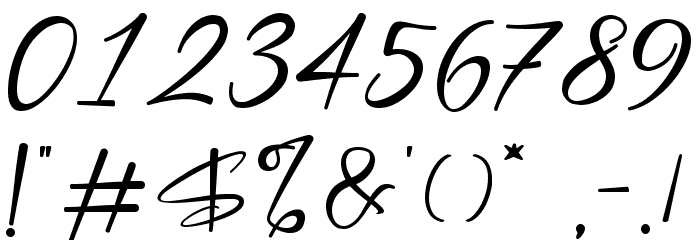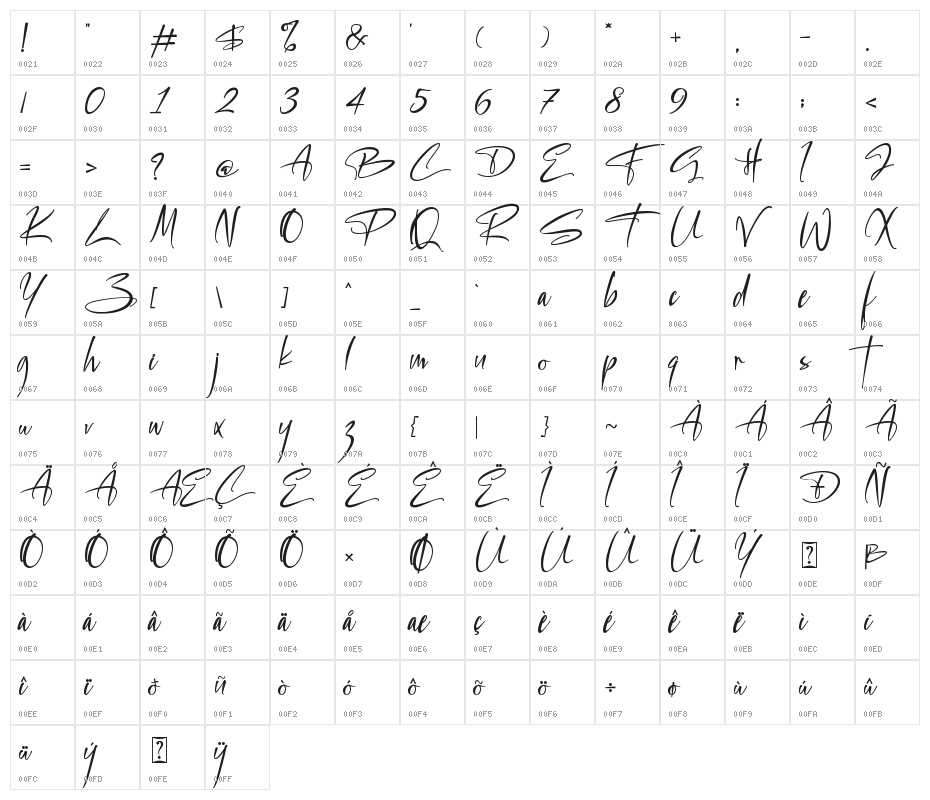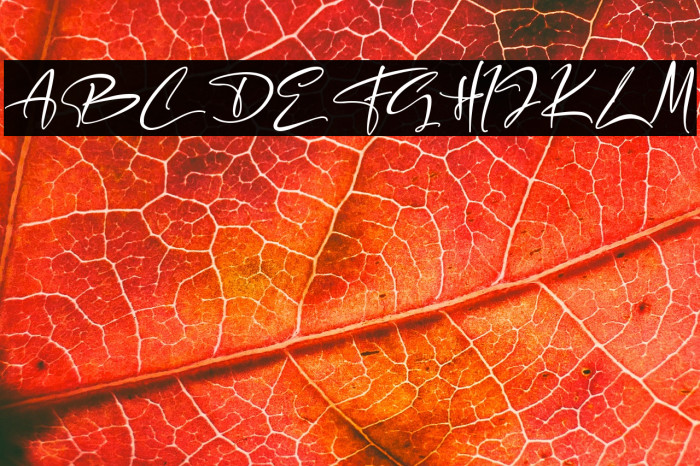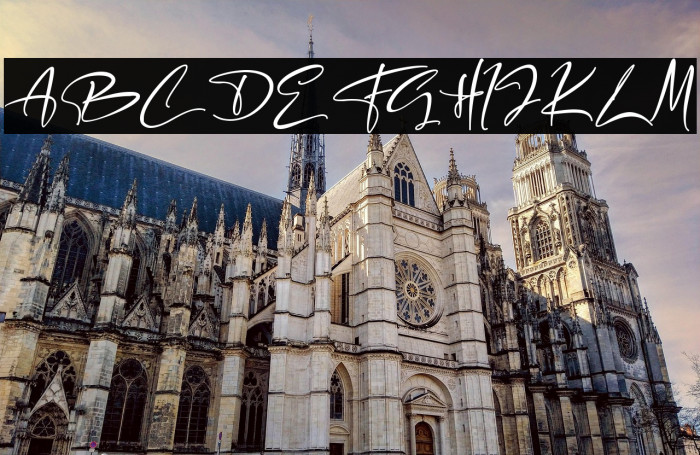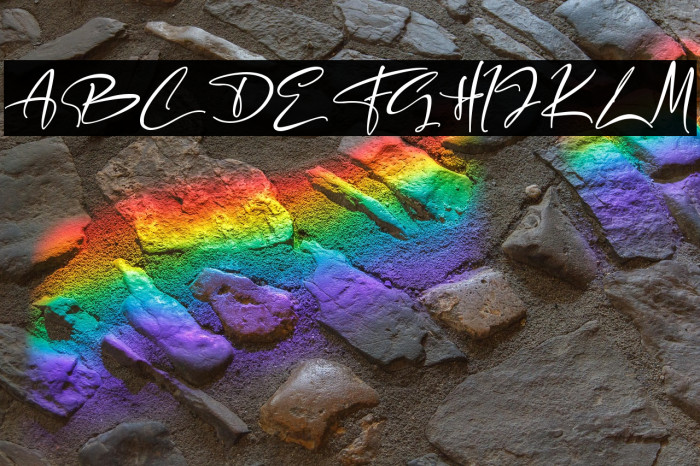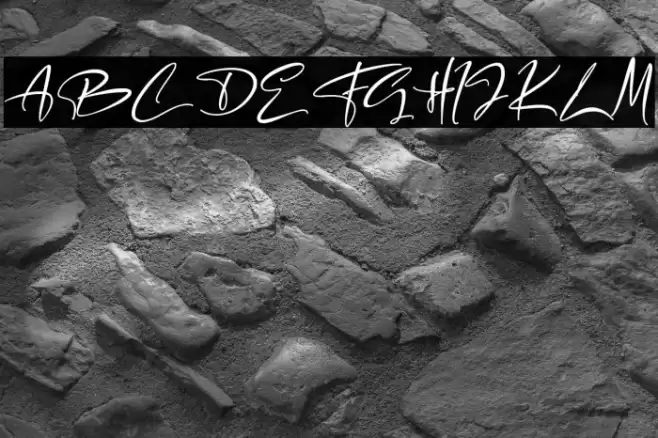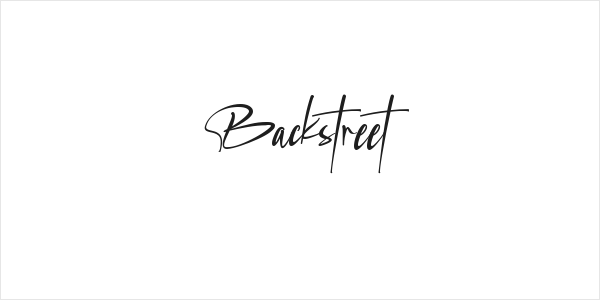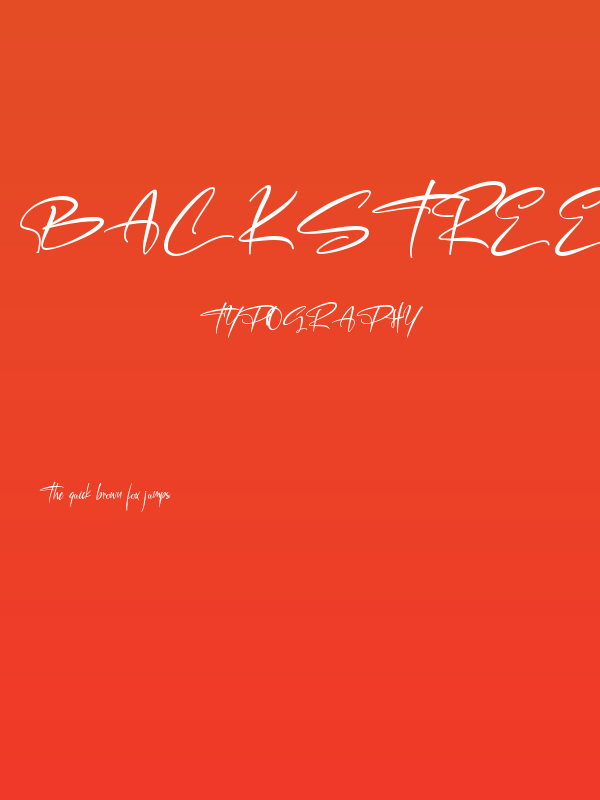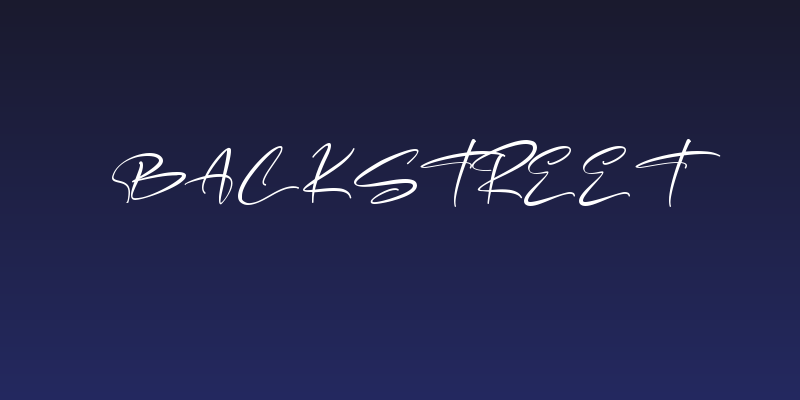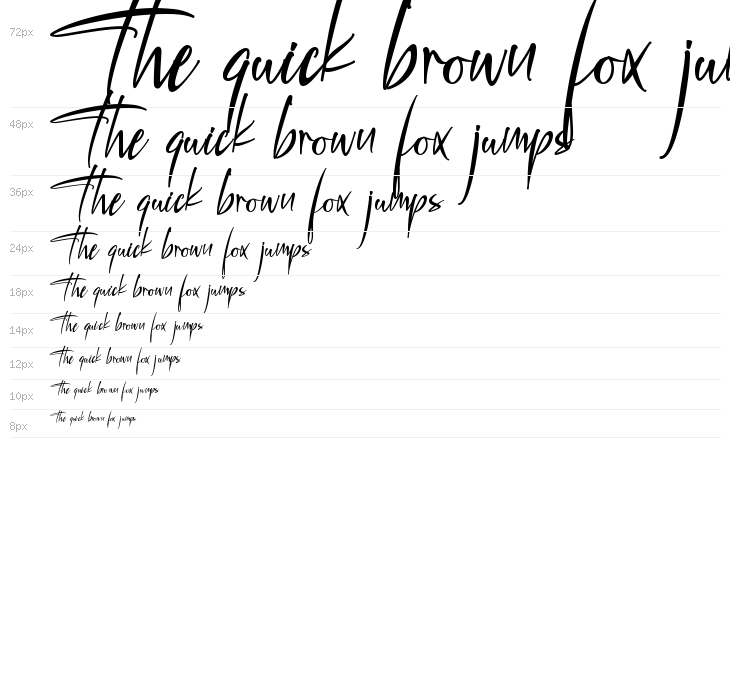
Backstreet Font
Backstreet Description
This font features a dynamic and expressive handwritten style, characterized by fluid and flowing strokes that give it a lively and personal touch. The uppercase letters are bold and slightly slanted, adding a sense of movement and energy. The lowercase letters maintain a consistent style, with some letters extending below the baseline, enhancing its casual and informal appearance. The numerals are clear and legible, matching the overall aesthetic of the font. Special characters are creatively designed, maintaining the playful and artistic feel. This font is perfect for projects that require a personal and artistic touch, such as invitations, greeting cards, and creative branding.
Use CaseLogos, Headlines, Creative projects
Proposed ProjectsIdeal for invitations, greeting cards, artistic branding, and creative projects.